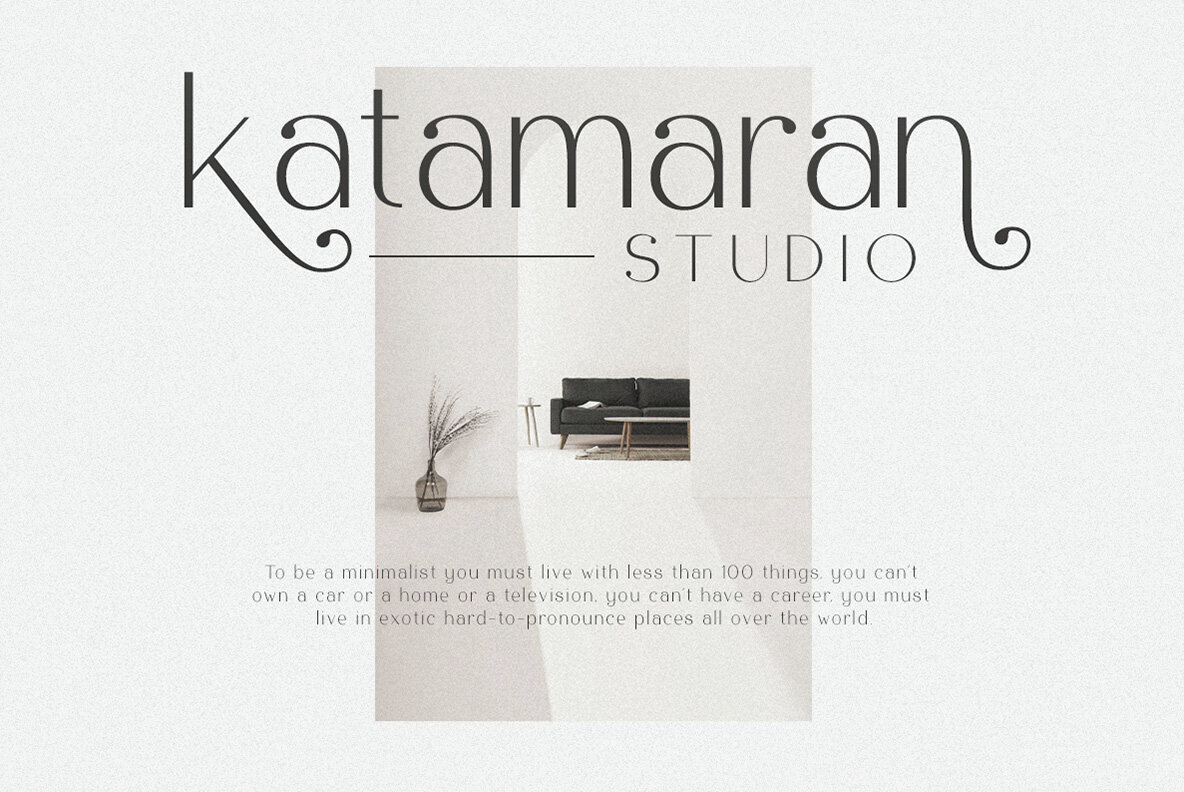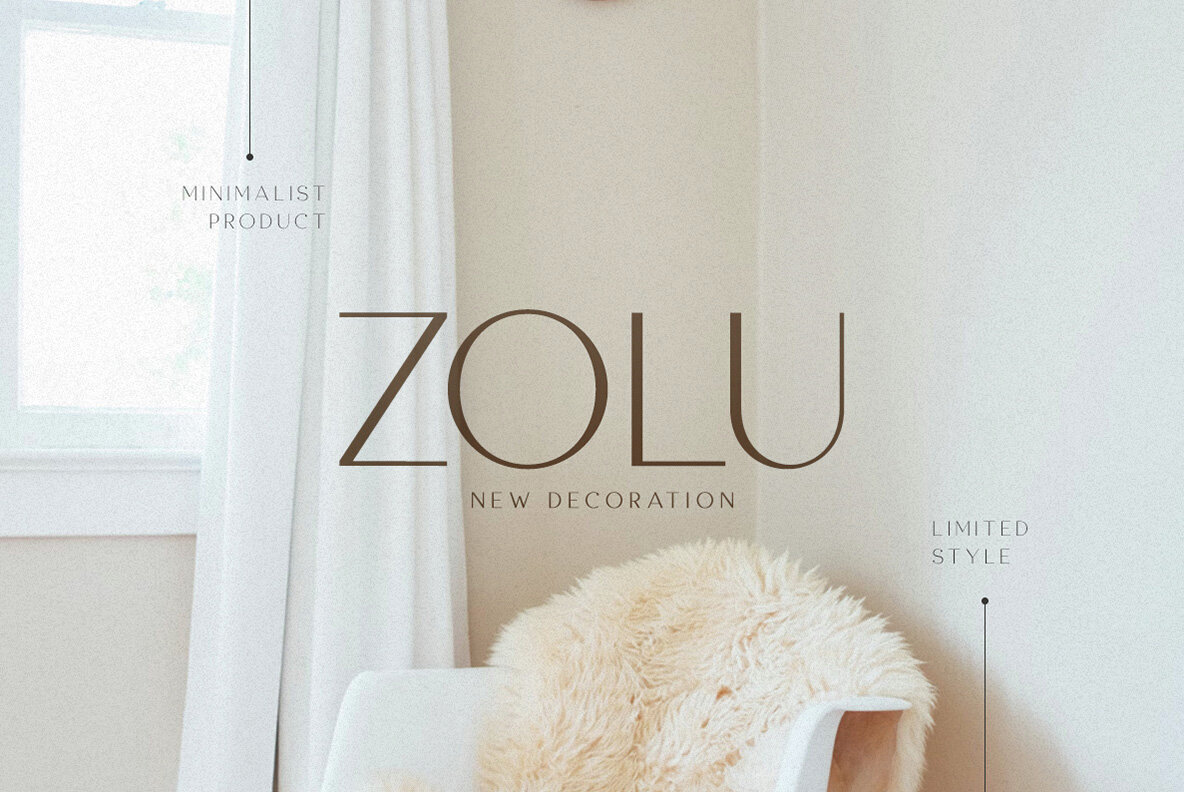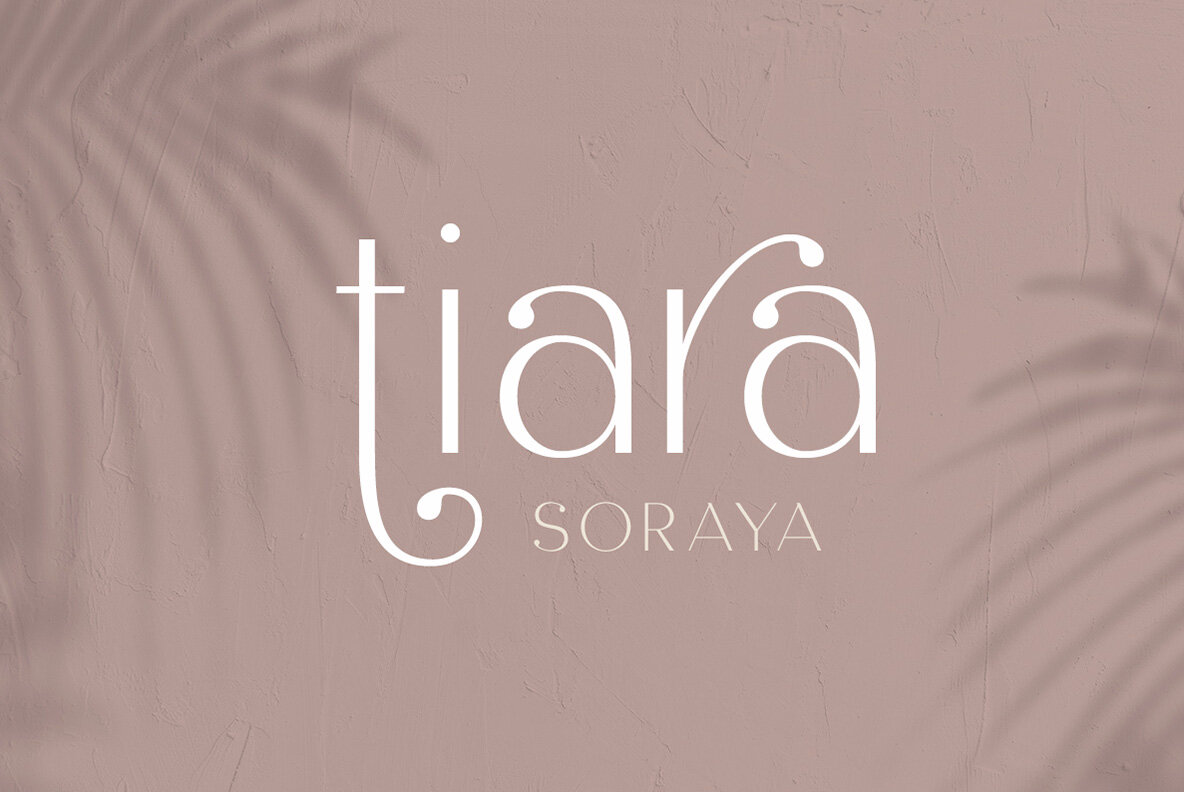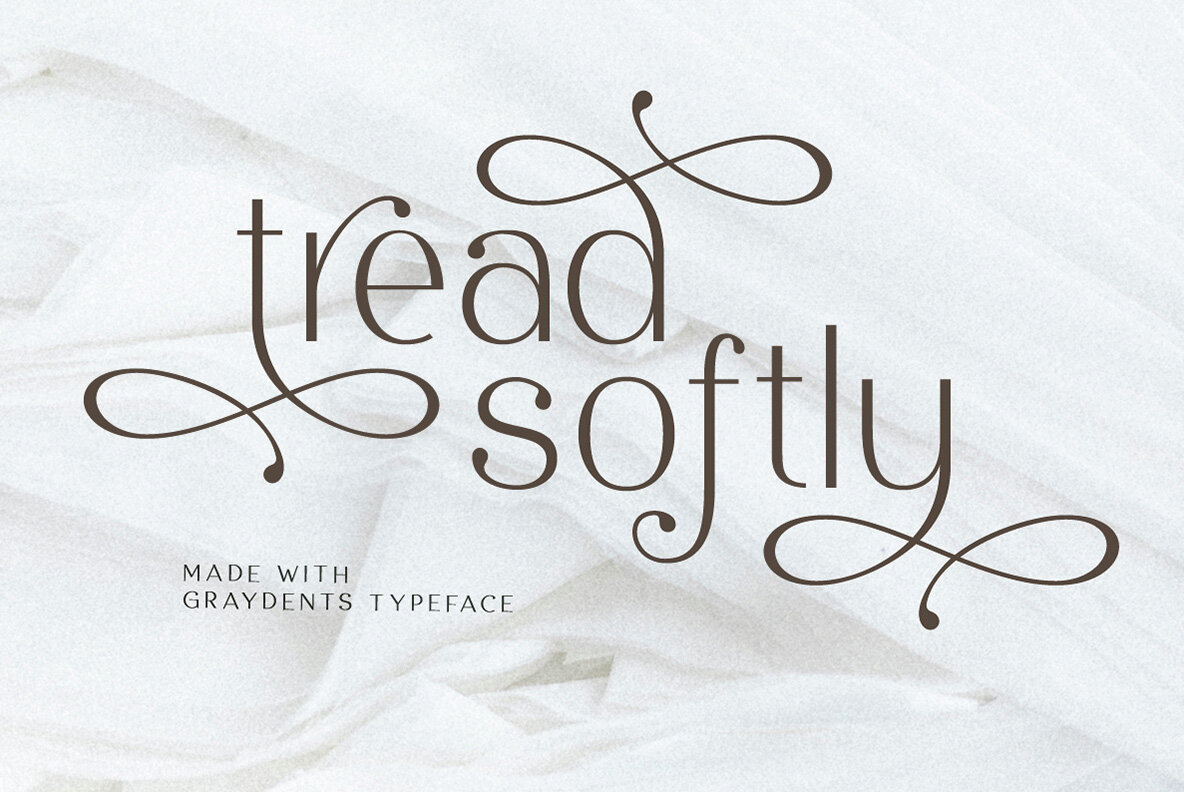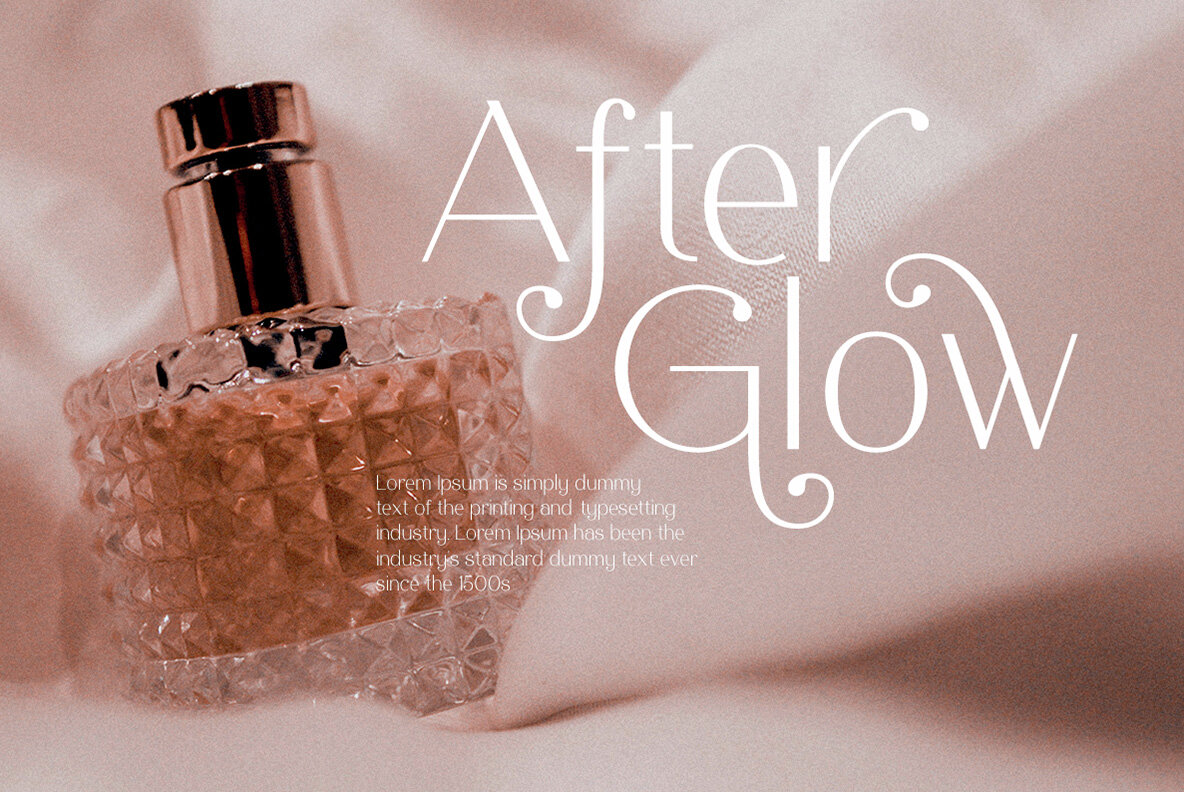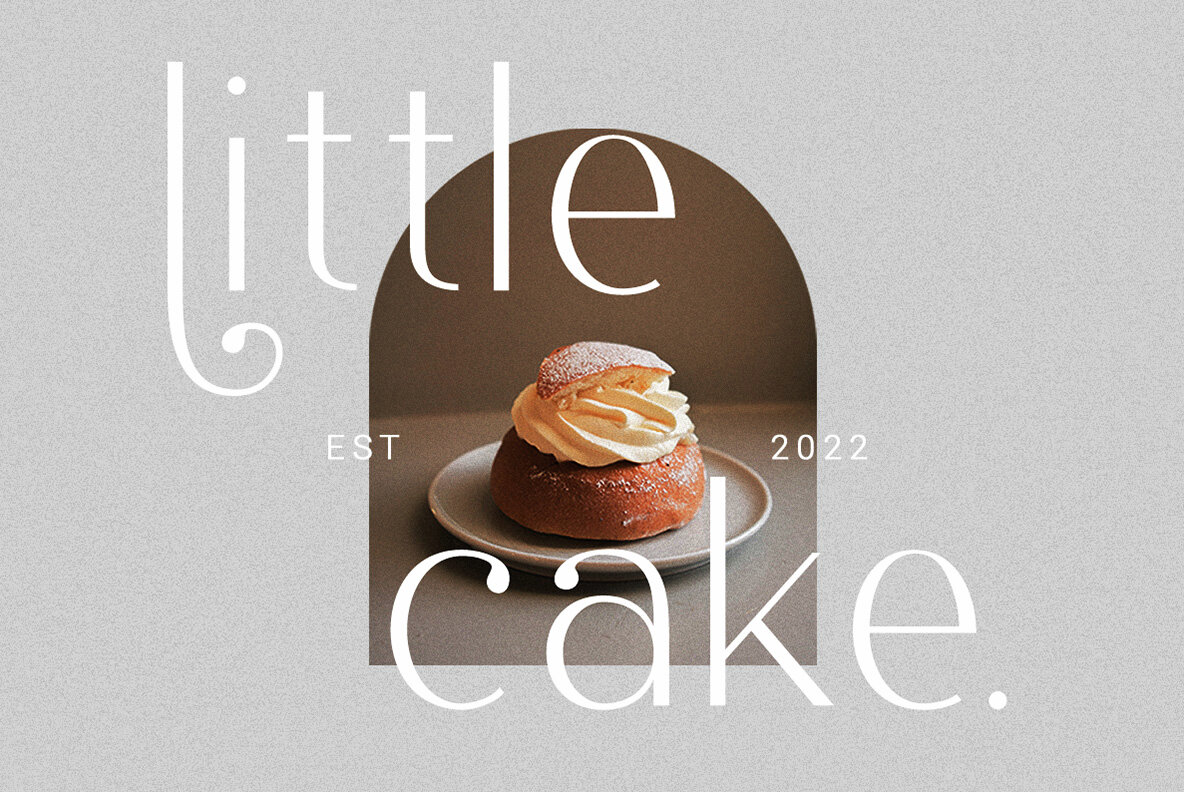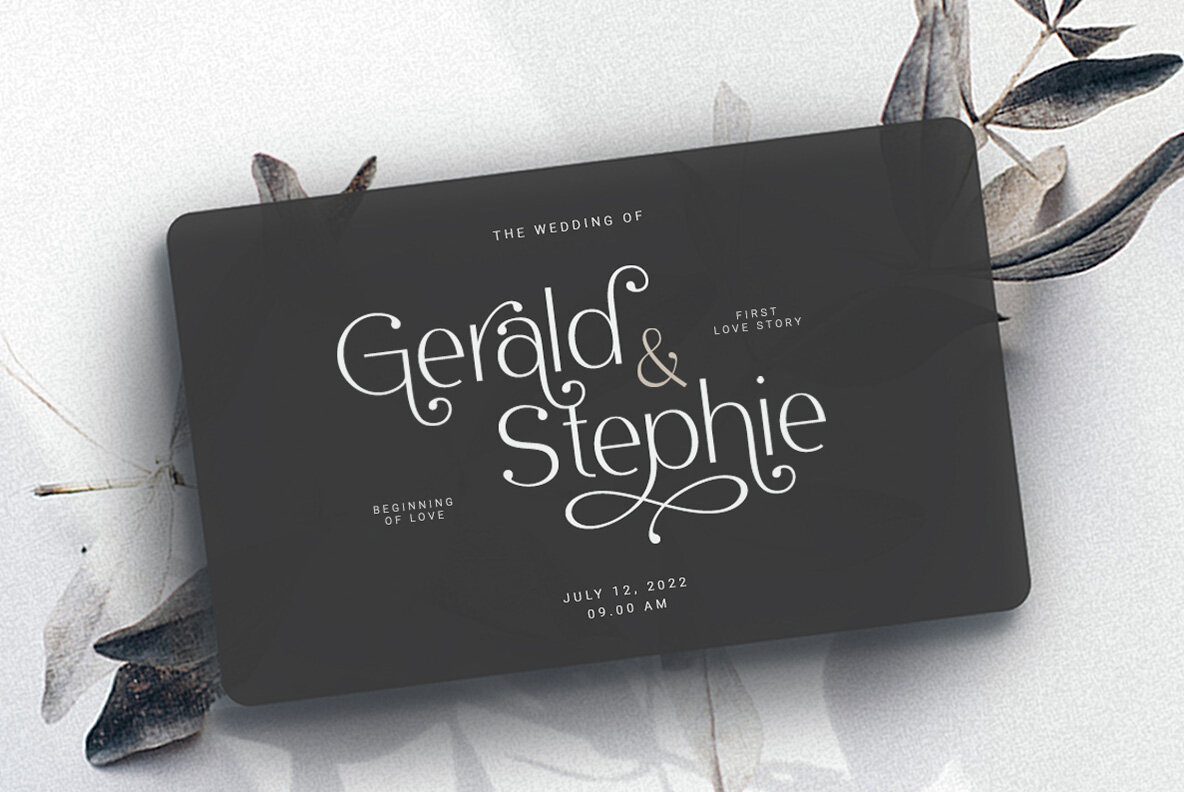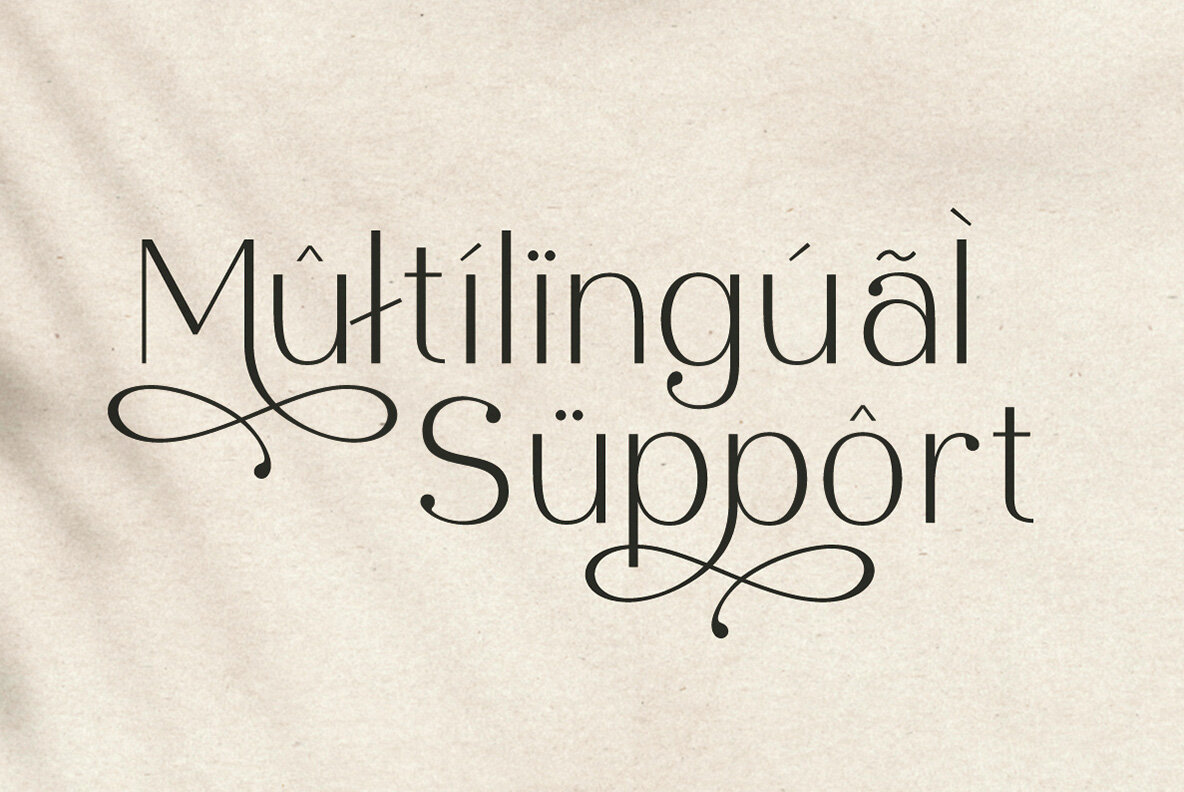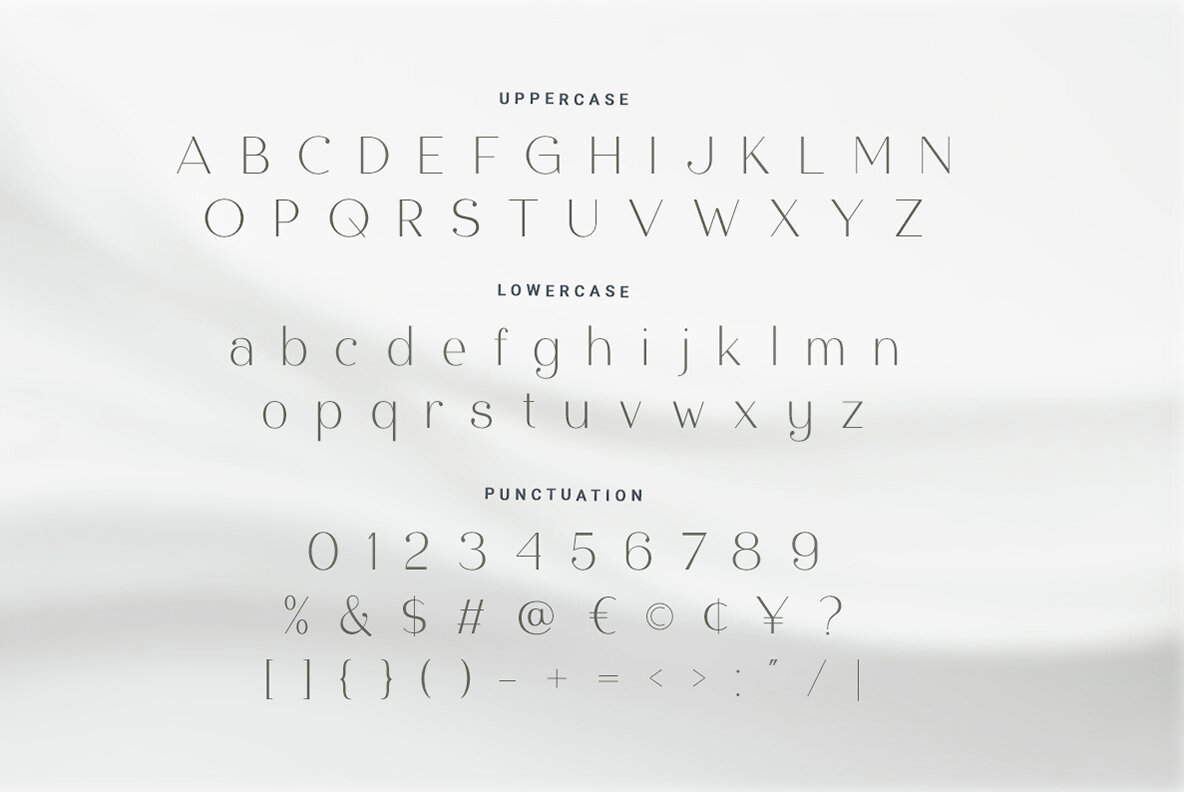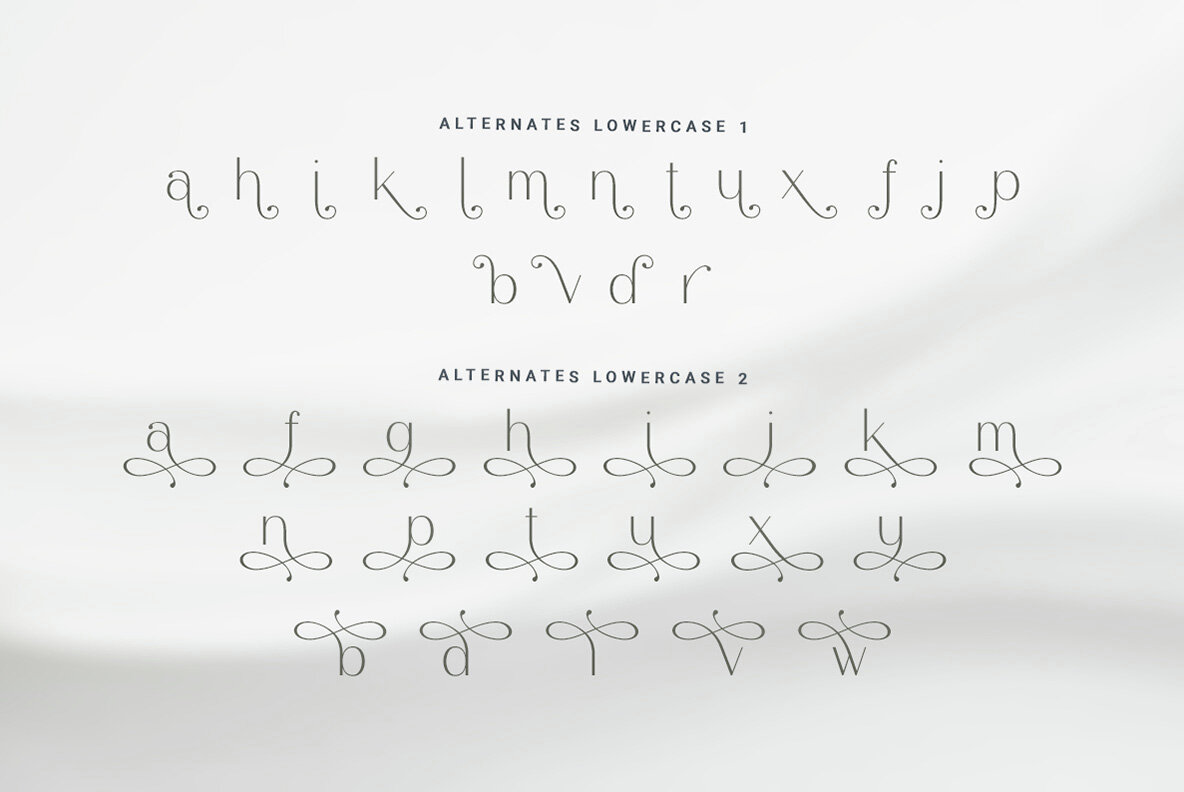
Graydents Font
Graydents Regular
Graydents is a stylish and elegant sans serif that will make your project even more stunning and stand out! This font has a bunch of alternates that you can use to make various design looks great, such as for logo, branding, invitation, magazine, etc. Graydents also support Multi Language.